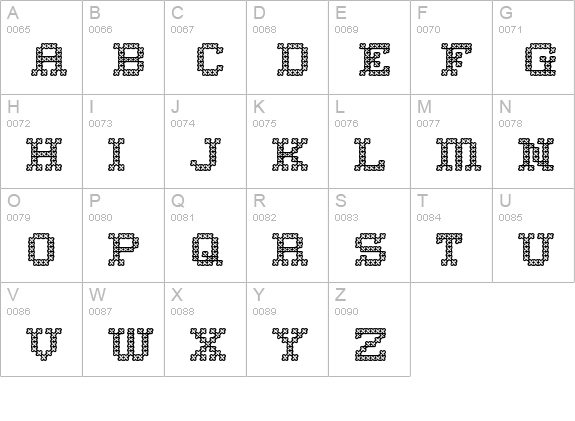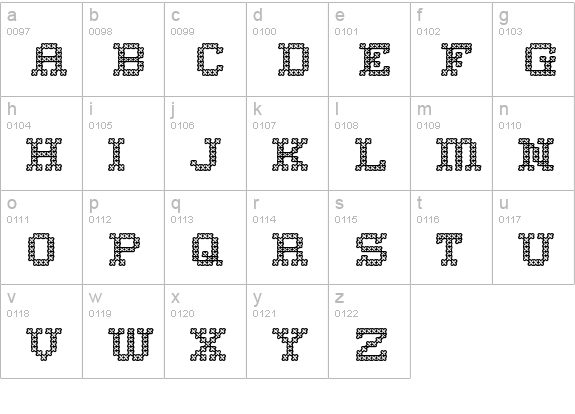
Home Sweet Home Outline font is a charming and whimsical typeface that exudes warmth and coziness. With its delicate outlines and playful design, this font is perfect for adding a touch of hominess to your projects. Whether you're working on greeting cards, invitations, or social media graphics, Home Sweet Home Outline font will bring a sense of comfort and familiarity to your designs. Best of all, this lovely font is available for free download at FontsMarket.com. So go ahead and bring a little bit of home into your creations with Home Sweet Home Outline font today!